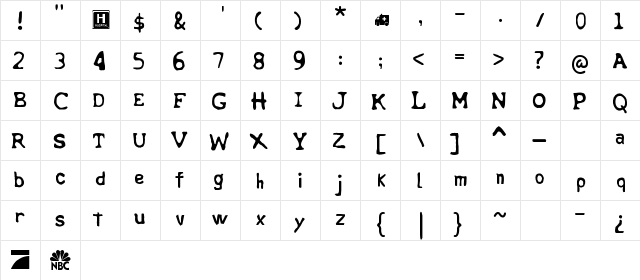
TSS Scrubs Logo Regular
Design Context for TSS Scrubs Logo Typeface
TSS Scrubs Logo takes a measured approach to typography — its balanced proportions and neutral character make it a reliable workhorse for both digital and print work.